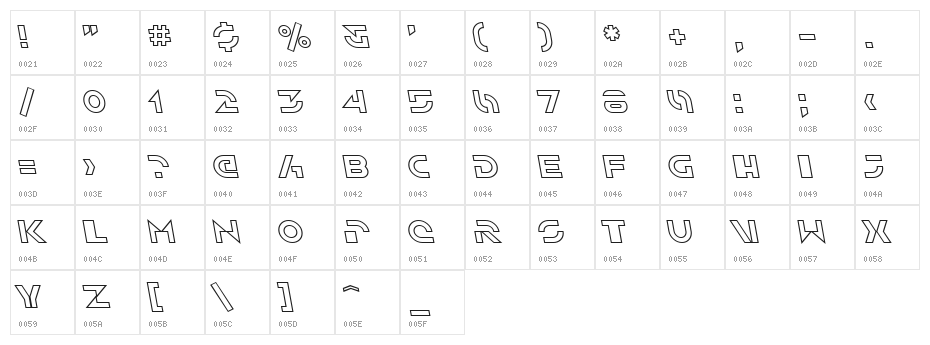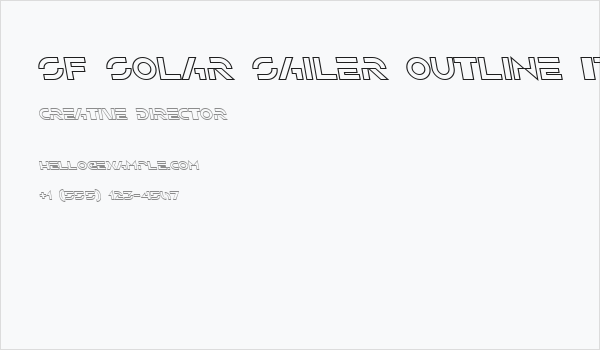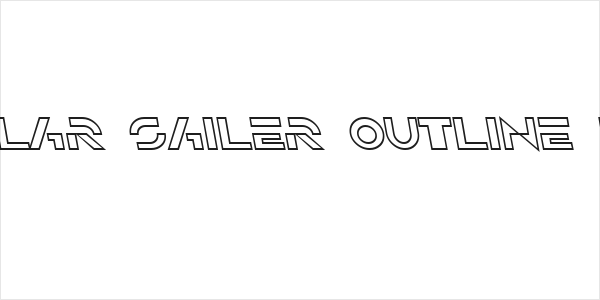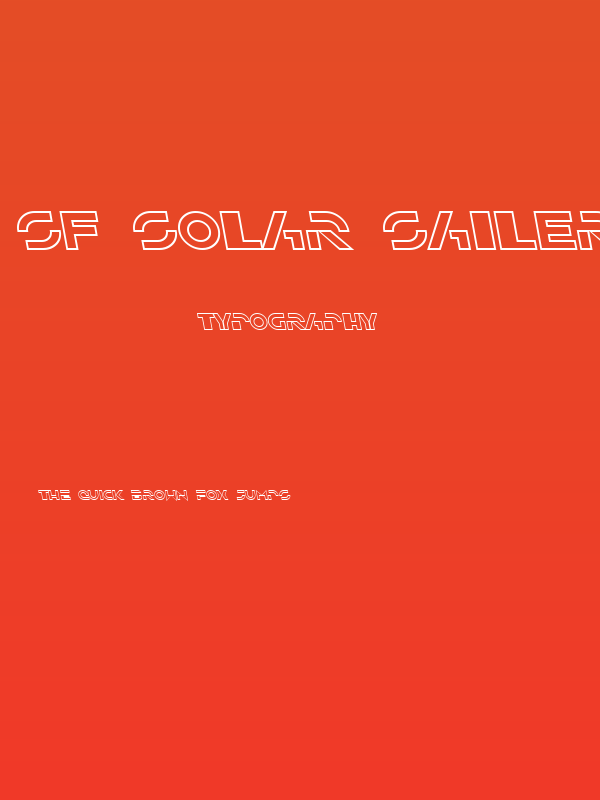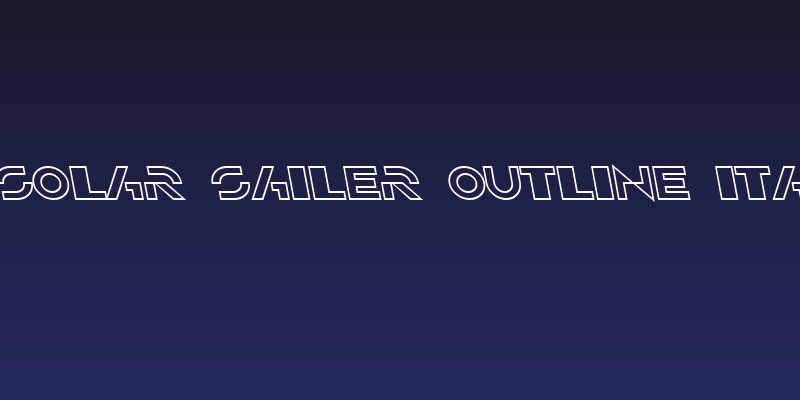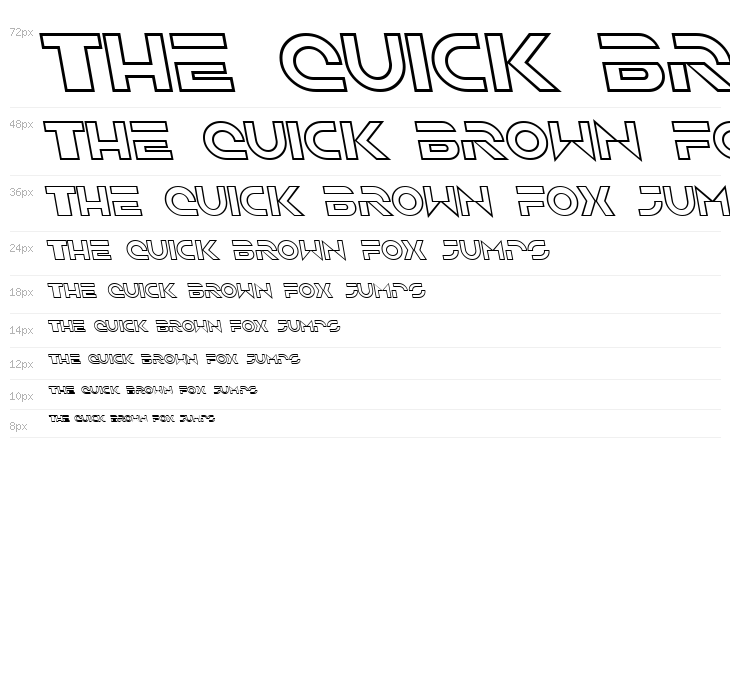
SF Solar Sailer Outline Italic Font
SF Solar Sailer Outline Italic Description
This font features a futuristic and geometric design with an outline style that gives it a unique, modern appearance. The characters are constructed with clean, angular lines and sharp edges, creating a sense of movement and dynamism. The italic slant adds a forward-leaning energy, enhancing its futuristic aesthetic. The uppercase and lowercase letters maintain a consistent style, with the numbers and special characters following the same design principles. This font is ideal for projects that require a bold, eye-catching look with a modern twist.
| Proposed Projects | Ideal for sci-fi themed designs, technology branding, video game titles, and modern posters. |